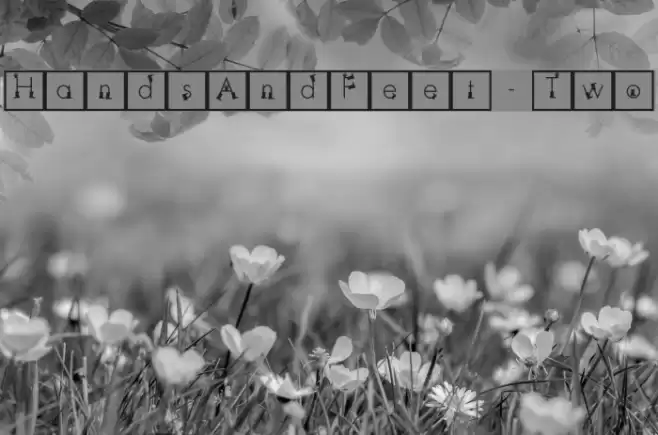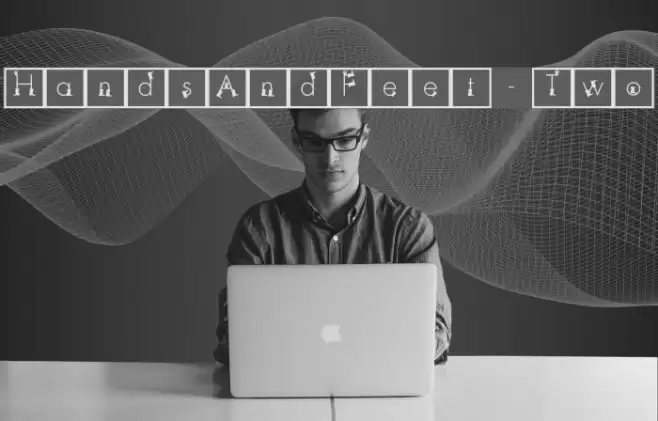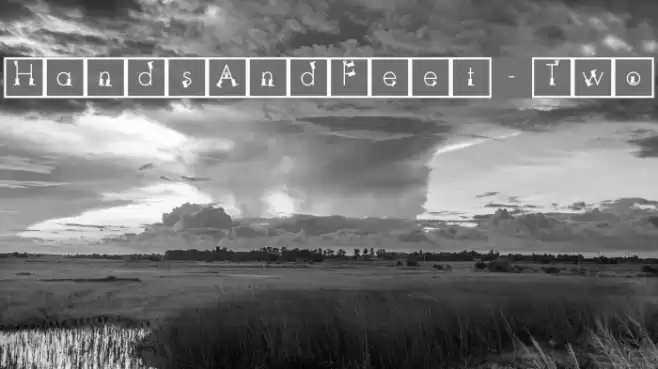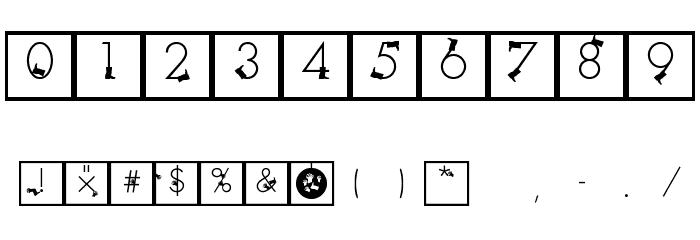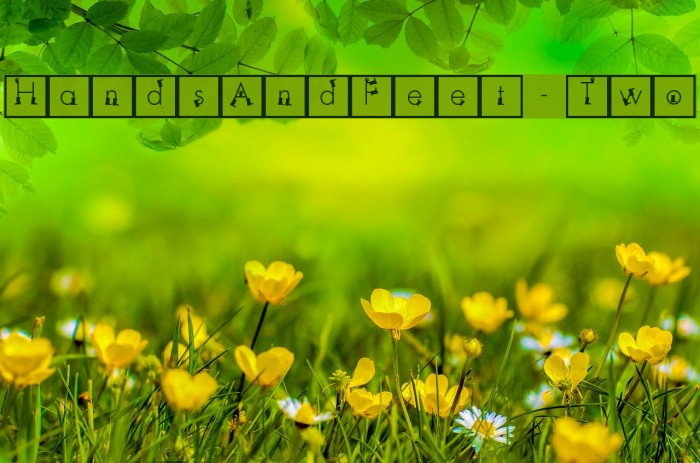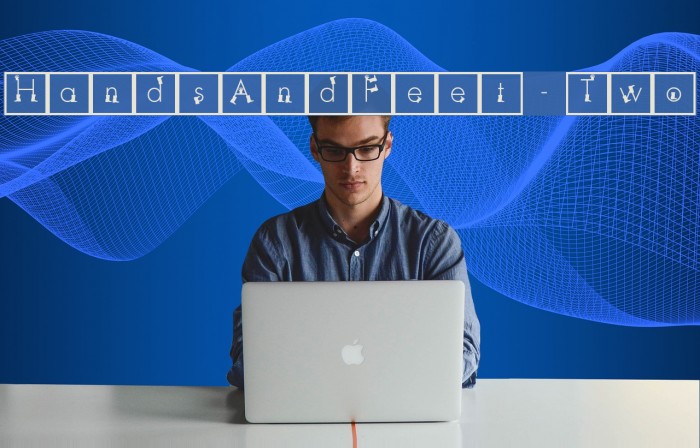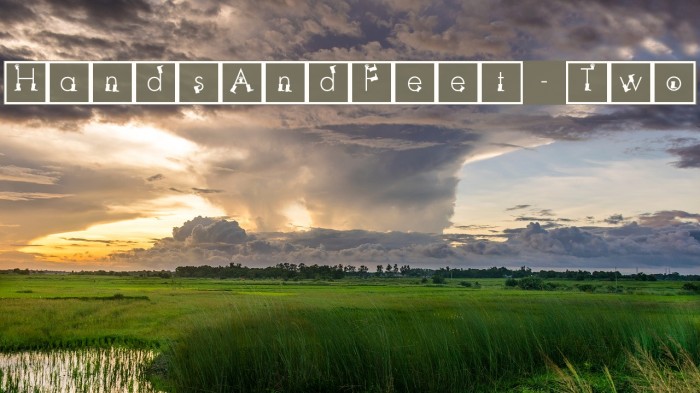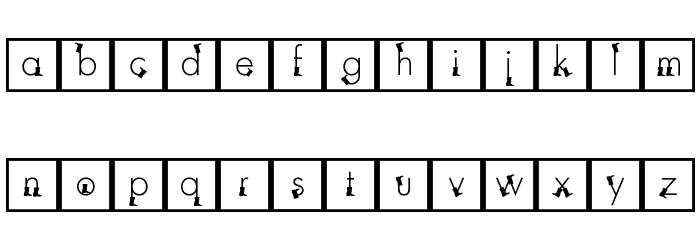
HandsAndFeet-Two Font
HandsAndFeet-Two Description
This font features a playful and whimsical design, incorporating elements that resemble hands and feet into each character. The letters are uniquely crafted, with each one having a distinct personality and charm. The uppercase and lowercase letters maintain a consistent style, while the numbers and special characters follow the same playful theme. The font's design is highly decorative, making it suitable for creative and artistic projects. The characters are well-spaced, ensuring readability despite their intricate details.
A playful, whimsical font with hand and foot elements in each character from Kids fonts.
- Proposed Projects: Ideal for children's books, playful branding, creative posters, and artistic invitations.
- Use Case: Logos, Headlines, Artistic projects